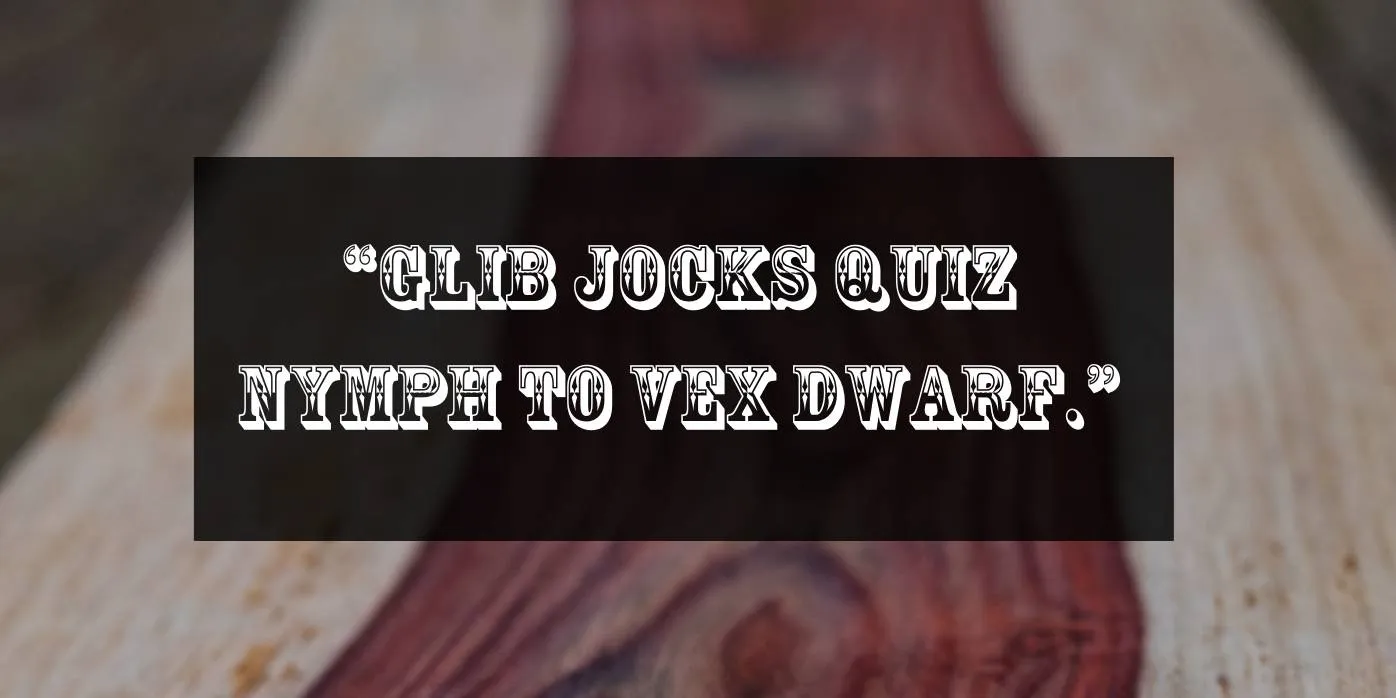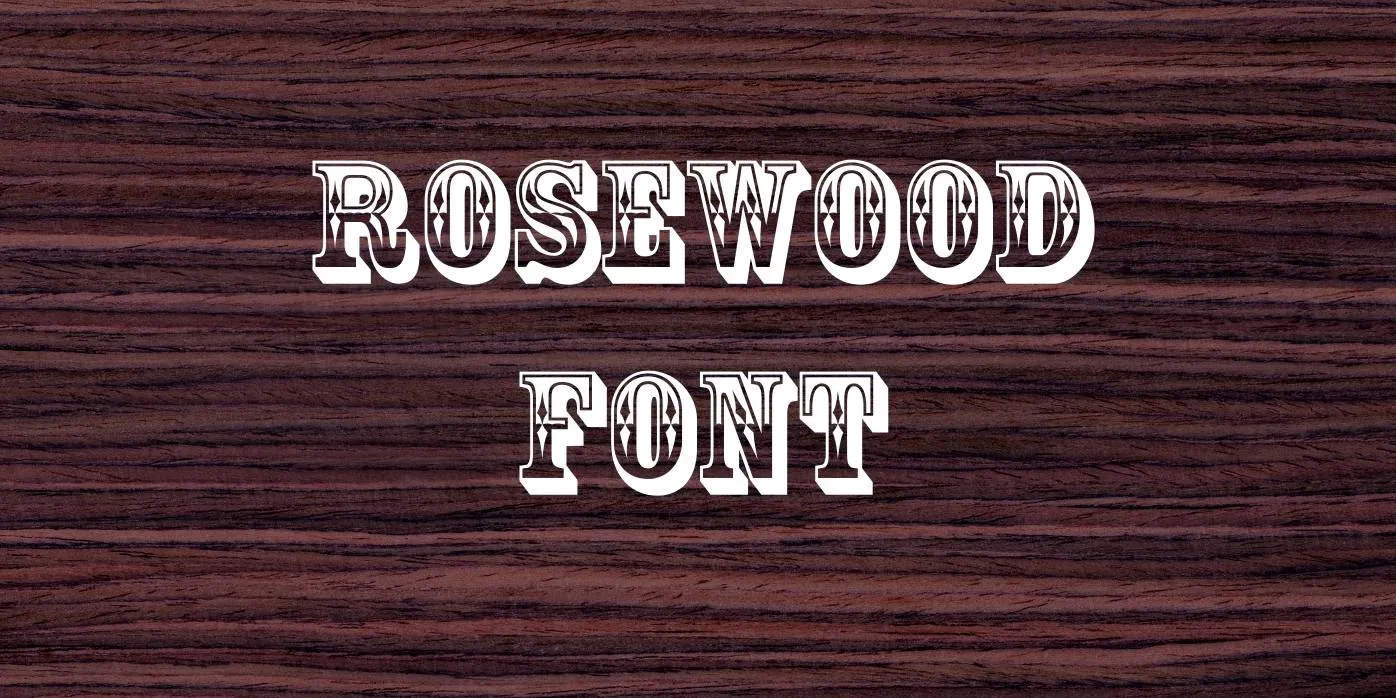
Rosewood Font
Here, we are consulting on a very famous typeface named Rosewood Font. This typeface belongs to the Slab serif typeface family. The main designer of this family was Carol Twombly. She was a student of Robert Slimbach.
Both designers worked in the Adobe Type Department. Rosewood is one of her most successful works which was released in the 1990s. This glorious font is a humanist slab serif typeface with strong geometric forms. The font includes 4 different weights – light, regular, bold, and black.
All these fonts are available in uppercase and lowercase letters. It is also best for Mac. Its similar courier new font is perfect for different designs. The lightweight is perfect for small text while the black weight can be used for headlines or display purposes.
The regular and bold weights are ideal for body copy. The overall design of Rosewood Font is very balanced and elegant. Its generator tool is best for various designs.